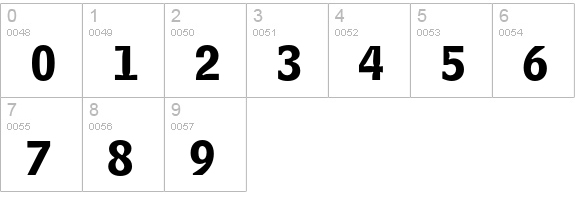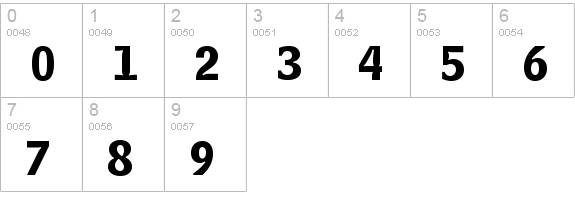
Bell Centennial Bold Listing Font Details
Bell Centennial Bold Listing is a strong, high-contrast variant in the Bell typeface family \xE2\x80\x94 well suited to headlines, attention-grabbing titles, and strong calls-to-action.
Bell Centennial Bold Listing font is a modern and highly readable typeface designed for use in telephone directories and other listings. Its bold strokes and clean lines make it perfect for capturing attention and ensuring easy legibility even in small print. The font exudes a sense of professionalism and efficiency, making it a popular choice for a wide range of print and digital applications. What makes Bell Centennial Bold Listing font even more appealing is that it is available for free download at FontsMarket.com. This means that designers, developers, and enthusiasts can easily access this high-quality font without any cost, making it a valuable resource for any project. With its perfect balance of style and functionality, Bell Centennial Bold Listing font is a must-have for anyone looking to elevate their design work to the next level.